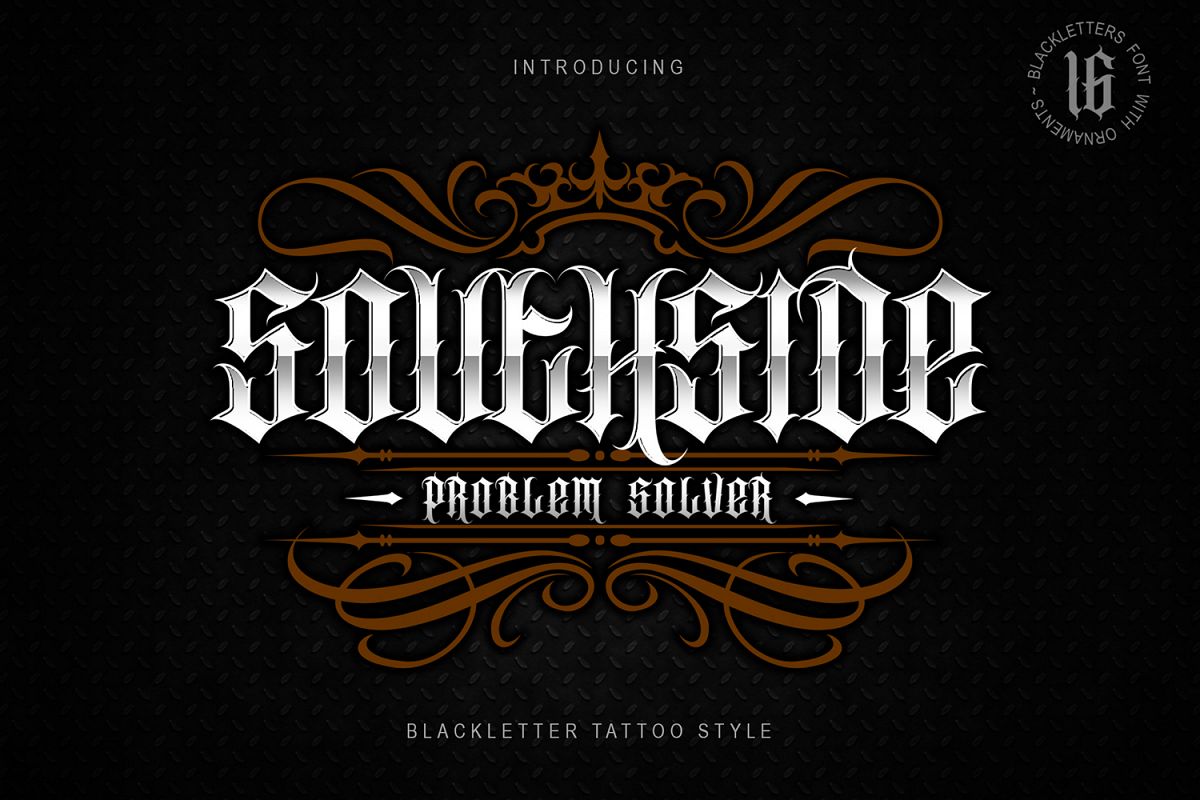
Tattoo Illusion - Tattoo Font it matches applies in some designs such as the logotype, brand, packaging, quotes, poster, t-shirt, invitation and more custom design. The features uppercase, lowercase, numeral, punctuation & symbol, multilingual support.rush